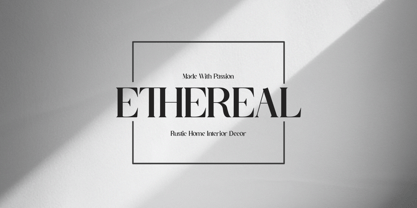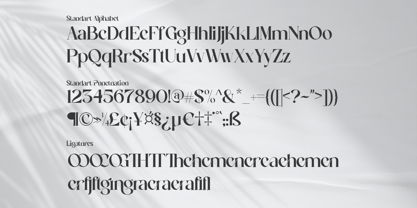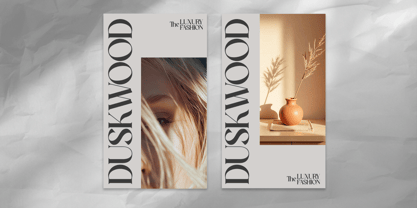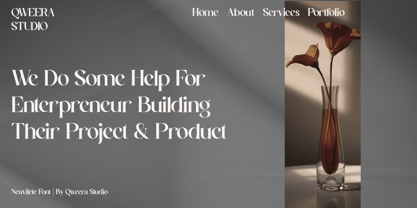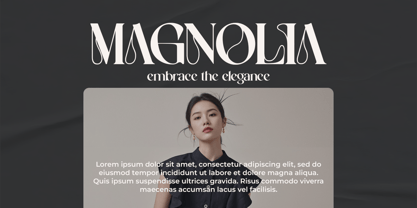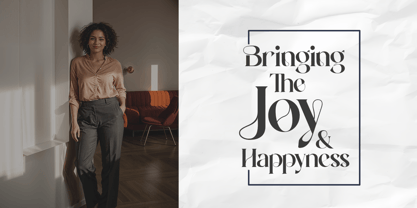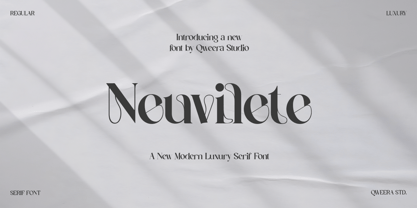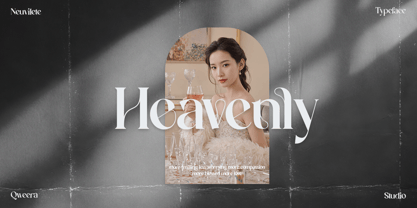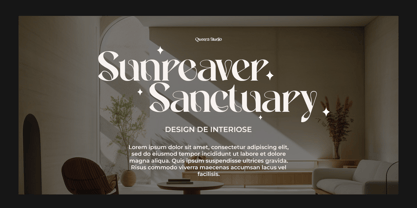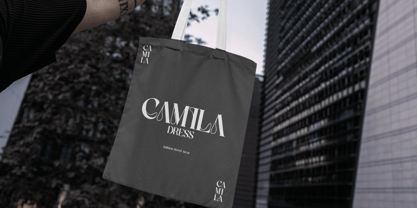
Neuvilete
by Qweera Studio
The Neuvilete Font Family was designed by Idhham Cholid Rikzano Yahya and published by Qweera Studio. Neuvilete contains 2 styles and family package options.
Neuvilete – Modern Luxury Serif Font
Introducing Neuvilete, a sophisticated modern luxury serif font designed to bring elegance and exclusivity to your creative projects. Featuring alternates and ligatures, this font allows for versatile customization, ensuring every design stands out.
Perfectly suited for branding, posters, magazines, and print designs, Neuvilete enhances every composition with a sleek, stylish, and timeless aesthetic. Its refined letterforms and balanced proportions make it an ideal choice for luxury brands, high-end editorials, and elegant invitations.
Elevate your designs with Neuvilete, a high-quality serif font that offers multilingual support and seamless usability for designers and creatives.
• All Multilingual symbol
• Opentype features ( ligature, alternate )